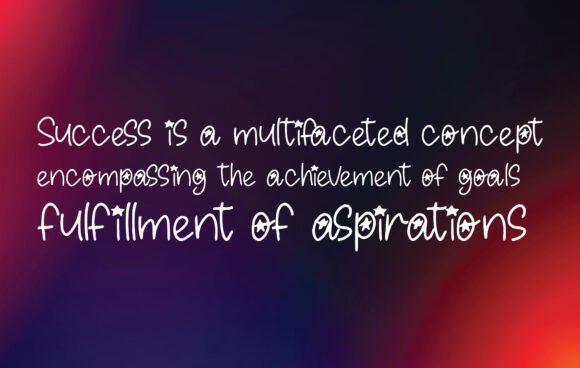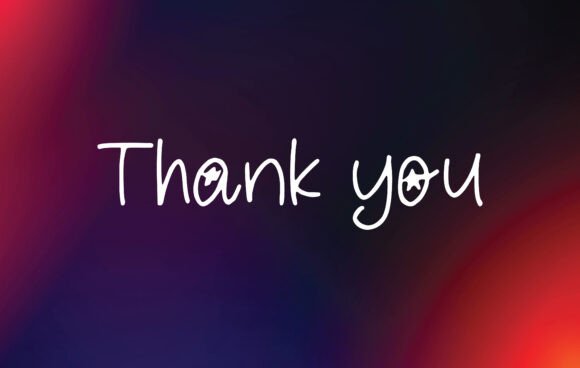
Curtis Font: Elevate Your Creative Projects with a Lovely Handwritten Style
Are you a designer or crafter looking for a font that can take your creative ideas to the next level? Look no further than Curtis Font, a beautiful handwritten font that is sure to impress. With its unique and elegant style, Curtis Font is the perfect choice for creating eye-catching logos, branding, and quotes that will leave a lasting impression.
The Beauty of Curtis Font
Curtis Font is a lovely and beautiful handwritten font that boasts a distinctive and charming style. Its elegant lines and curves make it perfect for a wide range of creative projects, from logos and branding to quotes and social media graphics. Whether you’re looking to add a touch of sophistication or a dash of whimsy to your designs, Curtis Font is sure to deliver.
Why Choose Curtis Font?
So why choose Curtis Font over other fonts? Here are just a few reasons why Curtis Font stands out from the crowd:
- Unique and Elegant Style: Curtis Font has a one-of-a-kind style that is both elegant and eye-catching. Its unique lines and curves make it perfect for creating designs that stand out from the crowd.
- Versatile: Curtis Font is incredibly versatile, making it perfect for a wide range of creative projects, from logos and branding to quotes and social media graphics.
- Easy to Read: Despite its elegant style, Curtis Font is incredibly easy to read, making it perfect for use in quotes, posters, and other designs where readability is key.
- High-Quality: Curtis Font is a high-quality font that is designed to deliver exceptional results. Its crisp and clean lines ensure that your designs look professional and polished.
Uses for Curtis Font
Curtis Font is incredibly versatile, making it perfect for a wide range of creative projects. Here are just a few ideas to get you started:
- Logos and Branding: Curtis Font is perfect for creating eye-catching logos and branding that will help your business stand out from the crowd.
- Quotes and Posters: Curtis Font is a great choice for creating inspirational quotes and posters that will motivate and inspire your audience.
- Social Media Graphics: Curtis Font is perfect for creating social media graphics that will help you connect with your audience and build your brand.
- Invitations and Stationery: Curtis Font is a great choice for creating beautiful invitations and stationery that will add a touch of elegance to any occasion.
Tips for Using Curtis Font
Here are a few tips for getting the most out of Curtis Font:
- Experiment with Different Sizes: Curtis Font looks great in a variety of sizes, so don’t be afraid to experiment to find the perfect size for your project.
- Pair with Other Fonts: Curtis Font pairs well with a variety of other fonts, so try pairing it with a bold font for a striking contrast.
- Use in Combination with Images: Curtis Font looks great in combination with images, so try using it to add text to your favorite photos or illustrations.